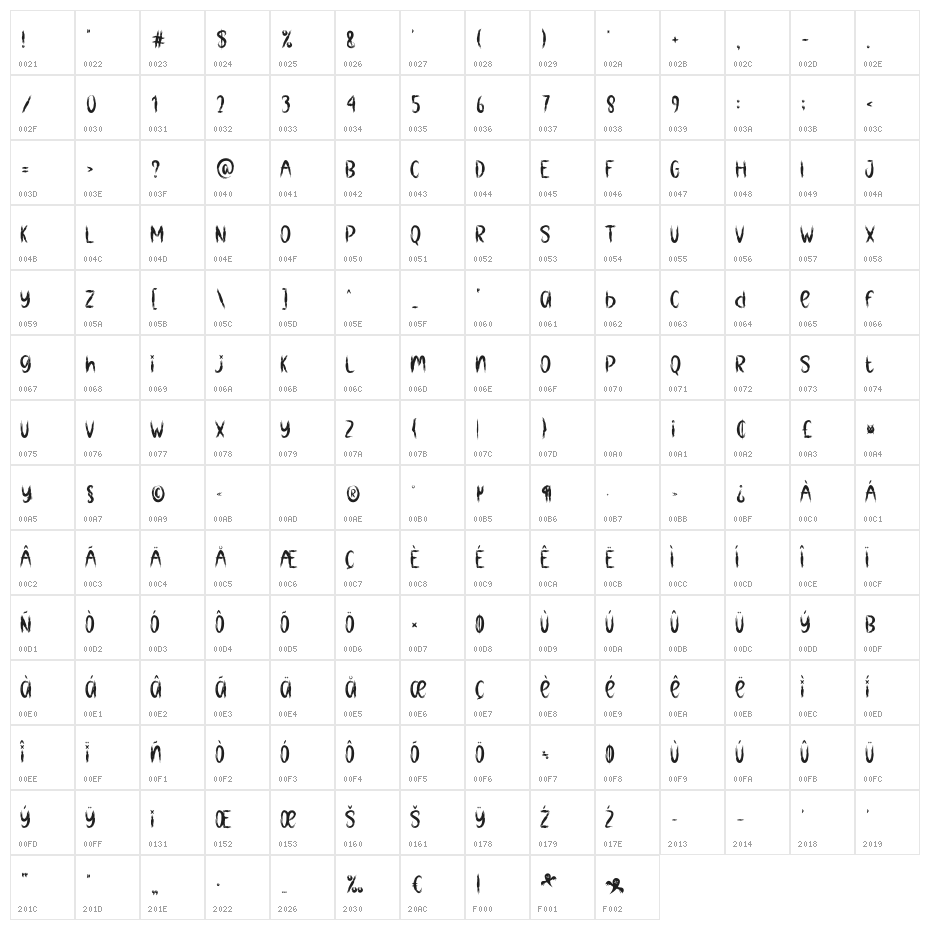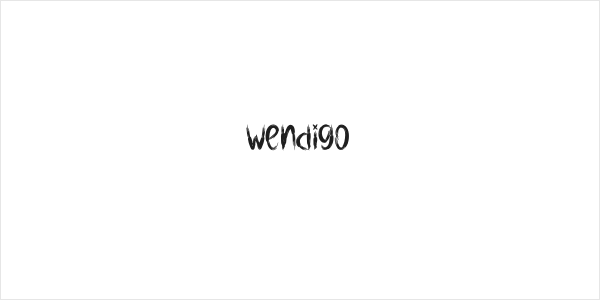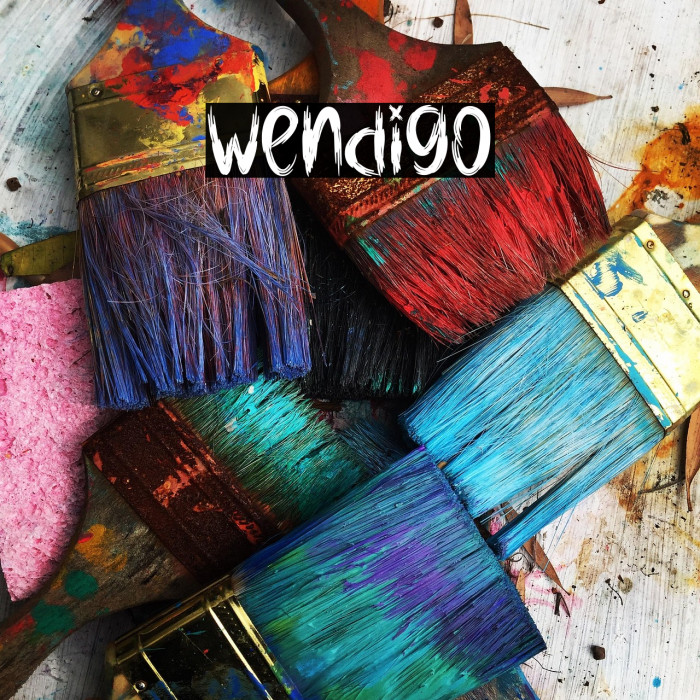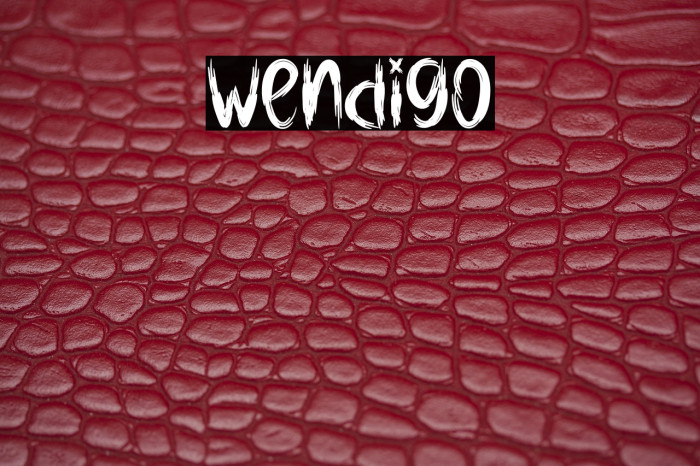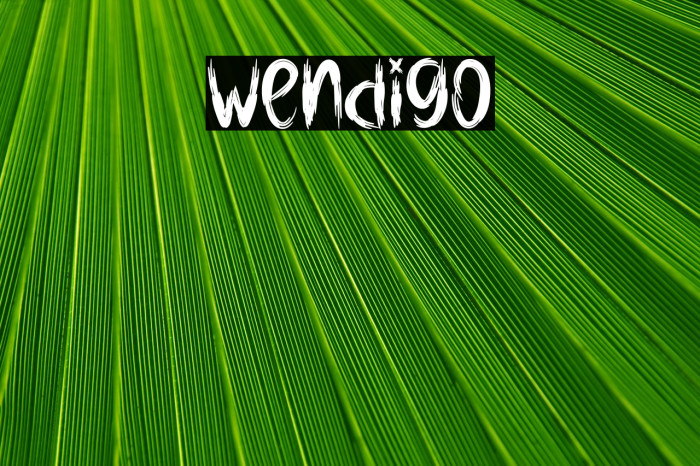
Wendigo Font
Wendigo Description
This font features a rugged, distressed appearance with jagged edges and irregular strokes, giving it a wild and untamed look. The characters are bold and dynamic, with a hand-drawn quality that suggests movement and energy. The uppercase and lowercase letters maintain a consistent style, while the numbers and special characters complement the overall aesthetic. The font's unique texture and organic feel make it stand out, ideal for projects that require a touch of the unconventional or eerie.
| Proposed Projects | Ideal for horror-themed posters, Halloween invitations, edgy branding, or any project needing a dramatic and unconventional typeface. |